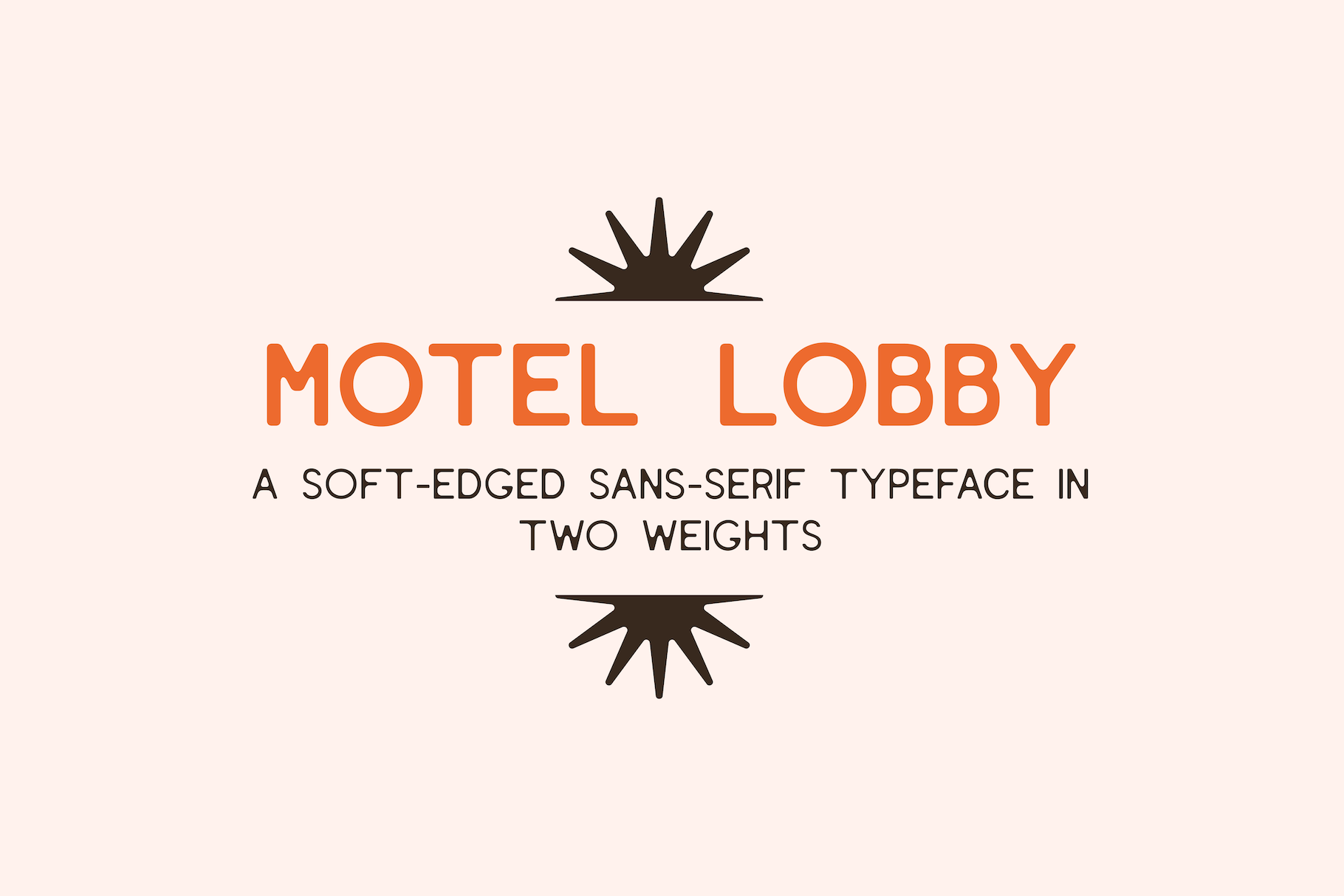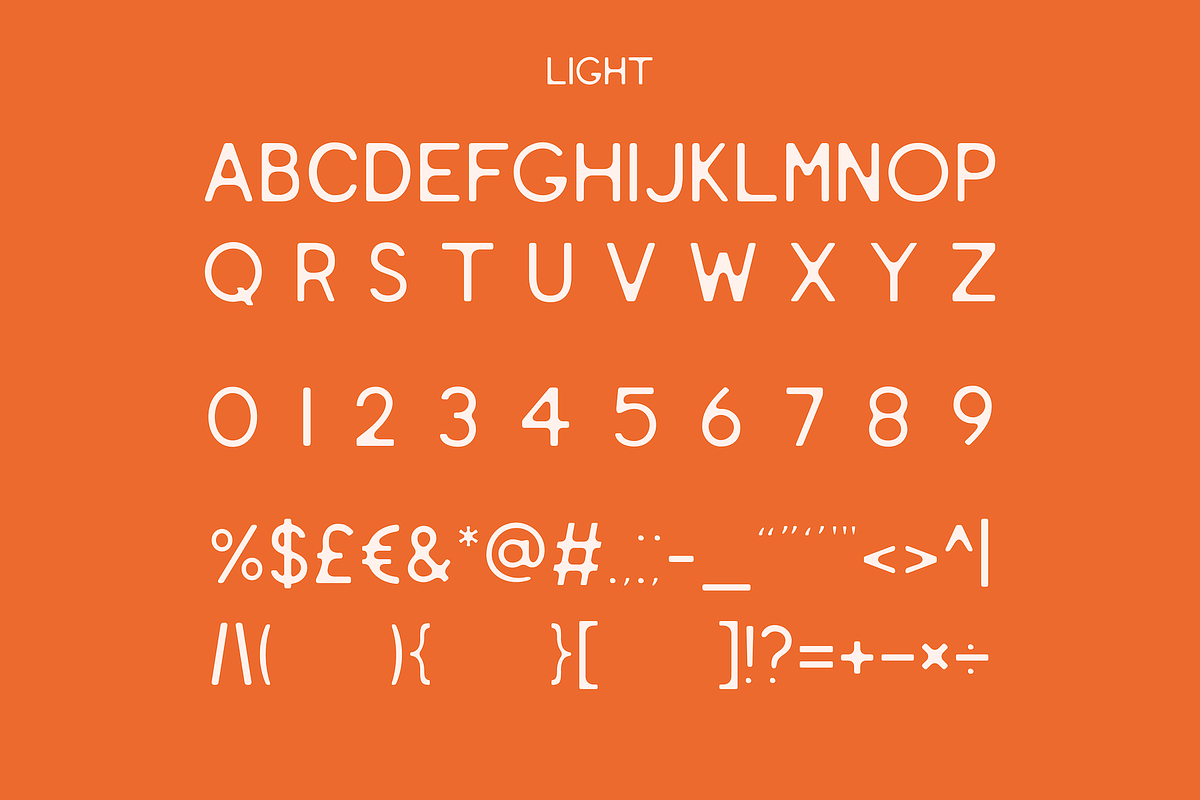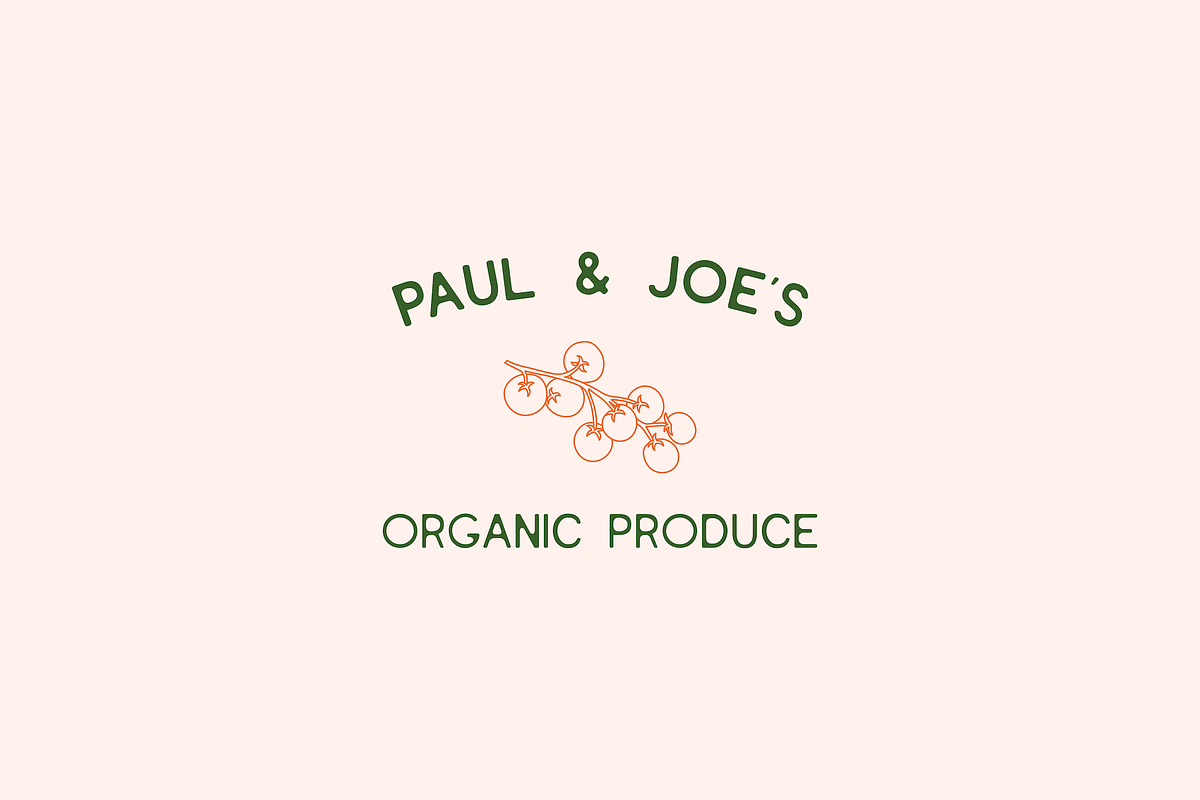
Motel Lobby | Sans-Serif Typeface
Motel Lobby is a sans-serif typeface with a softer touch.
- two weights, light and regular
- capitals A-Z
- numbers 0-9
- punctuation and special characters